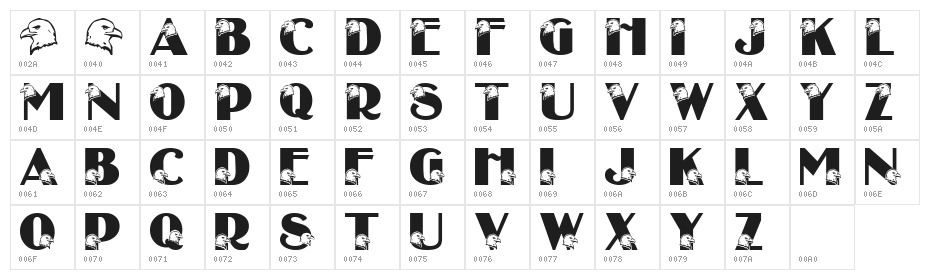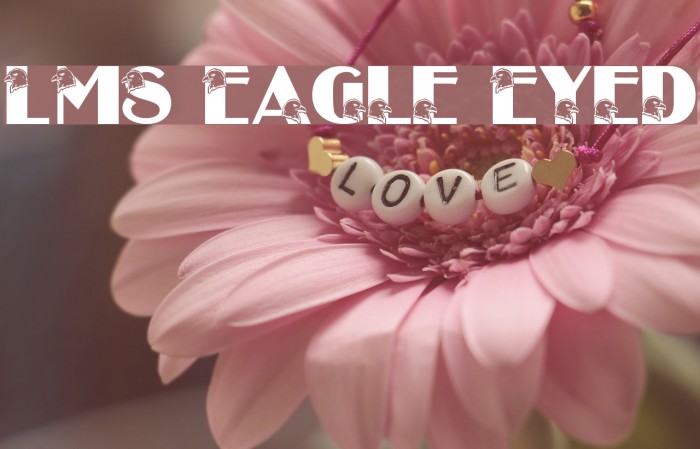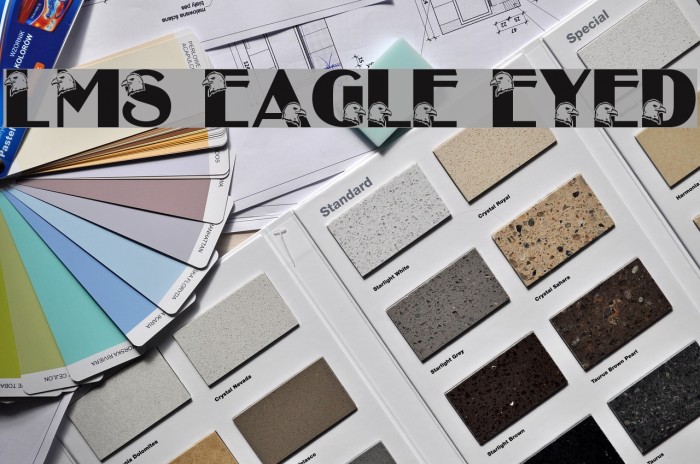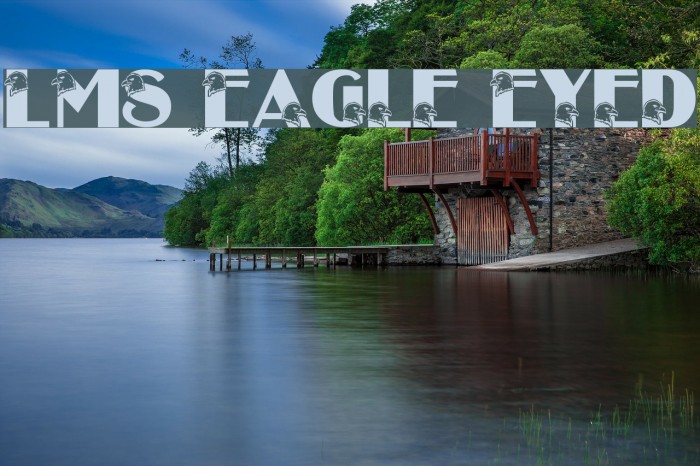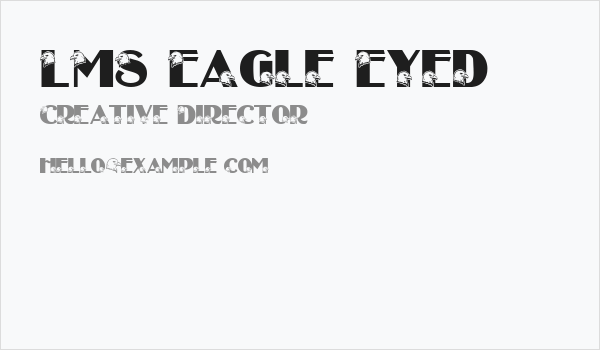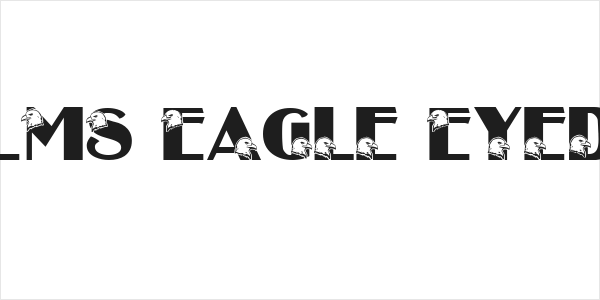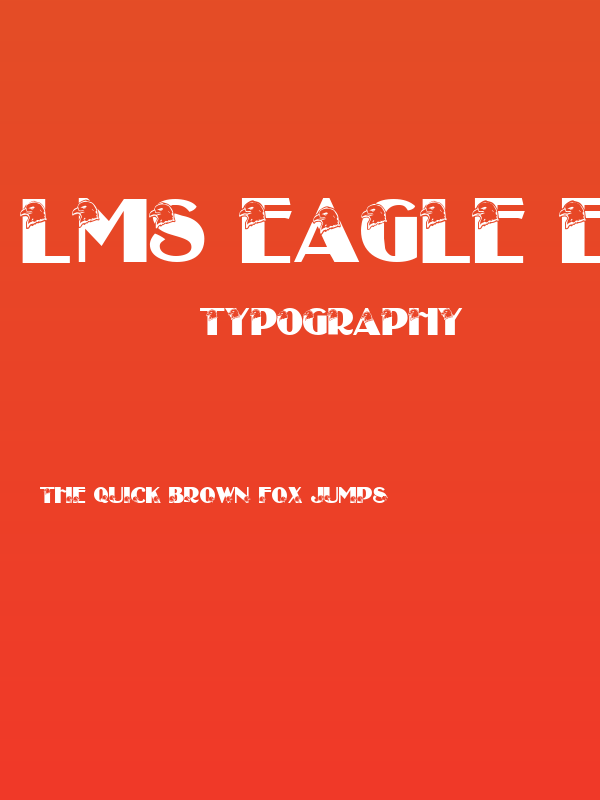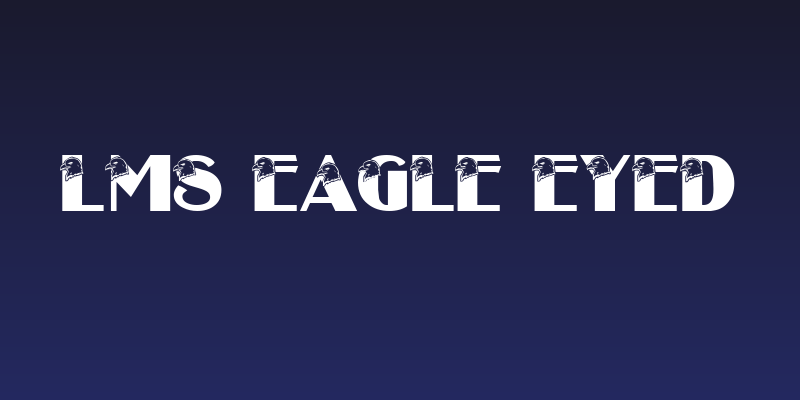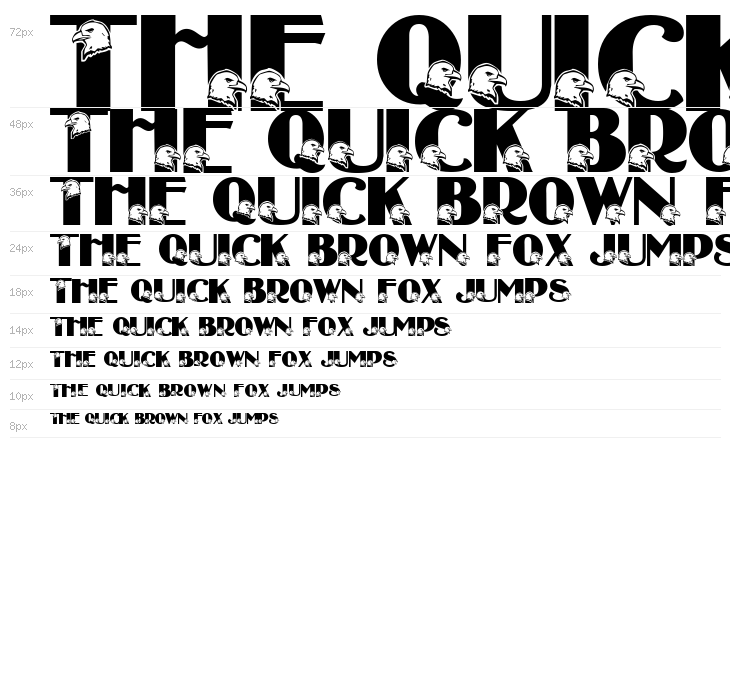
LMS Eagle Eyed Font
LMS Eagle Eyed Description
This font features a bold and striking design with each letter incorporating an eagle motif, creating a unique and eye-catching appearance. The uppercase letters are prominently styled, with the eagle's head seamlessly integrated into the design, adding a decorative and thematic element. The font's boldness and distinctive style make it ideal for projects that require a strong visual impact. The characters are evenly spaced, ensuring readability while maintaining the decorative aspect. This font is perfect for themes related to strength, freedom, or patriotism, and can be used in various creative projects.
| Proposed Projects | Ideal for patriotic designs, sports team logos, themed event posters, and merchandise branding. |